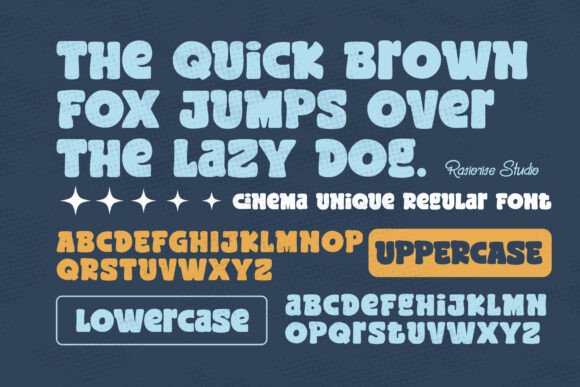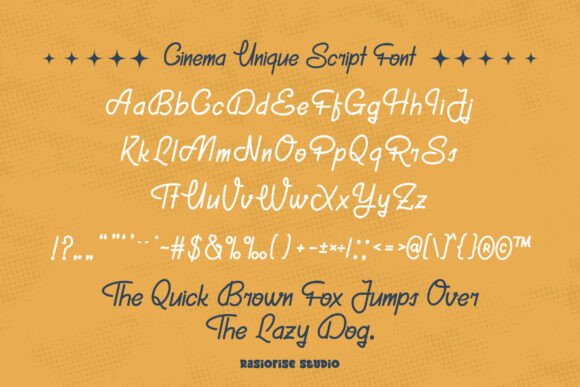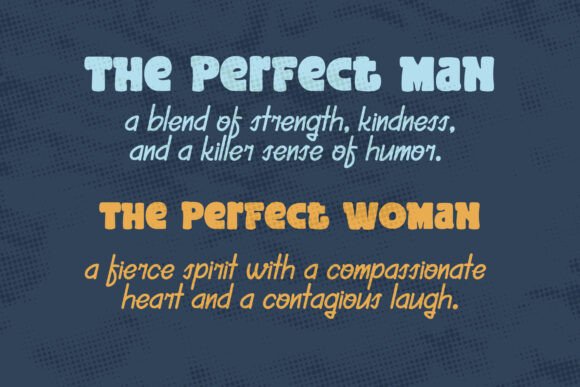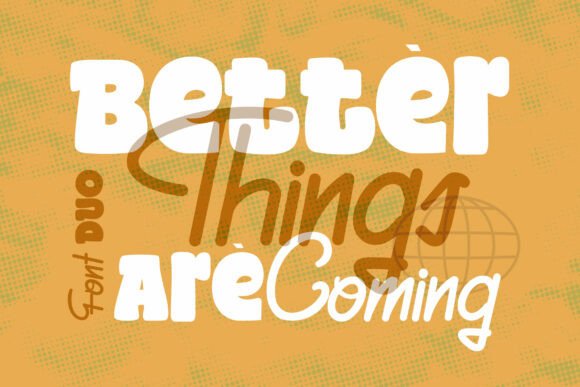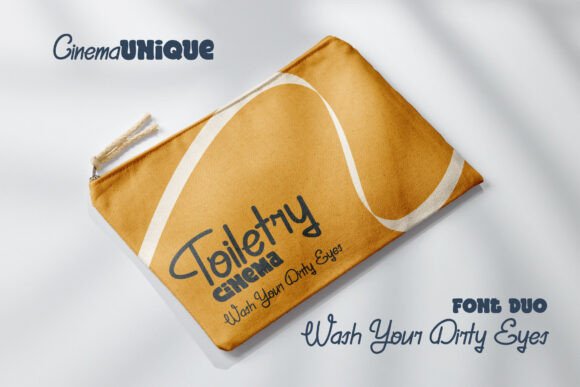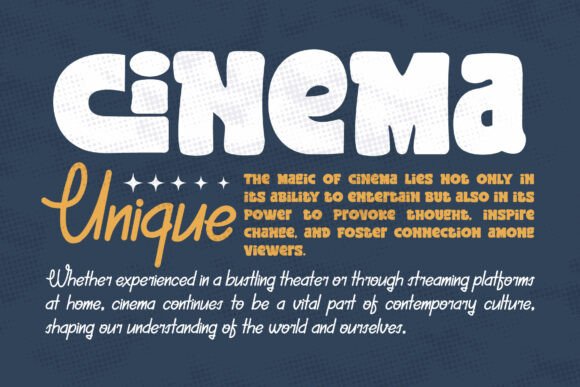
Cinema Unique Font: Elevate Your Designs with a Playful and Modern Twist
Are you on the hunt for a font that combines the elegance of a handwritten script with the boldness of a sans-serif typeface? Look no further than Cinema Unique Font, the latest addition to the world of typography. This font duo is specifically designed for creative individuals who want to add a touch of playfulness and modernity to their designs.
Inspiration and Design
Cinema Unique Font draws inspiration from the Script Handrawn font, with a unique blend of styles that creates a truly distinctive look. The font combines the fluid, artistic feel of a handwritten script with the clean lines and boldness of a sans-serif typeface. The result is a font that is both playful and elegant, perfect for designers who want to create beautiful typography that stands out.
The font’s design is characterized by its easy-to-read characters, which are carefully crafted to ensure that your designs are not only visually appealing but also highly legible. The artistic flair of Cinema Unique Font adds a touch of sophistication to any design, making it perfect for a wide range of applications.
Cinema Unique Font offers a range of features and benefits that make it an ideal choice for designers and crafters. Some of the key features include:
- Playful and modern design: Cinema Unique Font combines the best of both worlds, with a playful and modern design that is perfect for creating eye-catching typography.
- Easy-to-read characters: The font’s characters are carefully crafted to ensure that they are easy to read, making it perfect for designs where legibility is key.
- Artistic flair: Cinema Unique Font has a unique artistic flair that adds a touch of sophistication to any design.
- Versatile: The font is suitable for a wide range of applications, including logotype, book covers, badge/emblem designs, logos, gift cards, greeting cards, posters, merchandise, packaging labels, and more.
Use Cases and Applications
Cinema Unique Font is a versatile font that can be used in a wide range of applications. Here are some of the most popular use cases:
- Logotype and branding: Cinema Unique Font is perfect for creating eye-catching logotypes and branding materials that stand out.
- Book covers and publishing: The font’s elegant and playful design makes it perfect for book covers, journals, and other publishing materials.
- Badge and emblem designs: Cinema Unique Font is ideal for creating custom badges and emblems that add a touch of sophistication to any design.
- Posters and advertising: The font’s bold and playful design makes it perfect for creating eye-catching posters and advertising materials.
- Merchandise and packaging: Cinema Unique Font can be used to create custom merchandise and packaging materials that stand out.
Tips and Tricks for Using Cinema Unique Font
Here are some tips and tricks for getting the most out of Cinema Unique Font:
- Experiment with different sizes and colors: Cinema Unique Font looks great in a variety of sizes and colors, so don’t be afraid to experiment and find the perfect combination for your design.
- Pair with other fonts: Cinema Unique Font can be paired with other fonts to create a unique and eye-catching design.
- Use for headlines and titles: The font’s bold and playful design makes it perfect for headlines and titles.
Cinema Unique Font is a versatile and elegant font that is perfect for designers and crafters who want to add a touch of playfulness and modernity to their designs. With its easy-to-read characters, artistic flair, and bold design, this font is sure to elevate your designs and make them stand out. Whether you’re creating logotype, book covers, badge/emblem designs, or merchandise, Cinema Unique Font is the perfect choice.